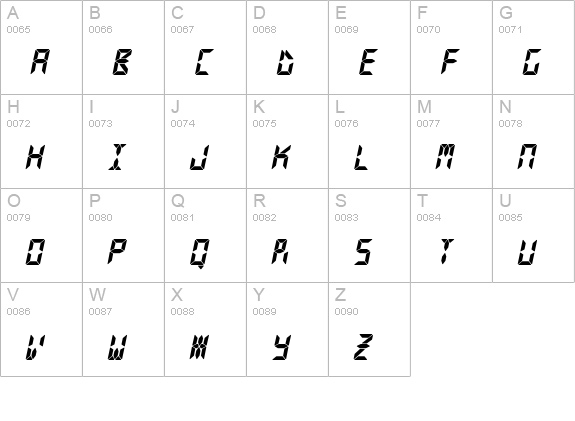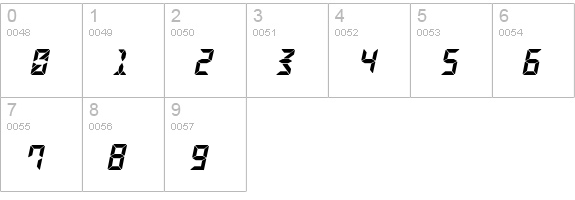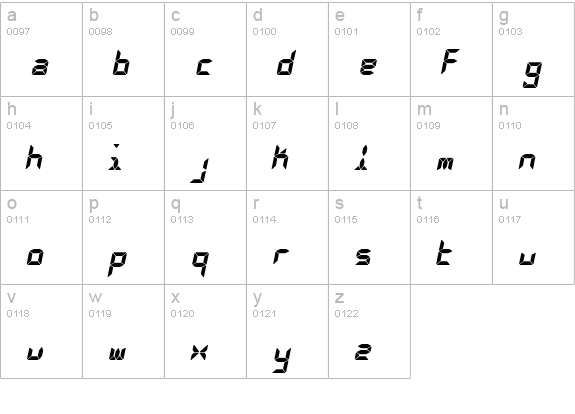
CalculusLCDOblique Font Details
CalculusLCDOblique font is a sleek and modern typeface that combines the precision of a digital calculator display with a stylish twist of oblique angles. This unique font is perfect for projects that require a contemporary and professional look, making it ideal for digital displays, infographics, and technical documents. What sets CalculusLCDOblique font apart is its clean lines and sharp edges, which give it a futuristic and high-tech feel. The oblique angles add a dynamic and energetic touch to the text, making it stand out in any design. Best of all, CalculusLCDOblique font is available for free download at FontsMarket.com. Whether you're a graphic designer, web developer, or just someone looking to add a modern touch to your projects, this font is a must-have in your font library. Download it today and elevate your designs with the sleek and stylish CalculusLCDOblique font.